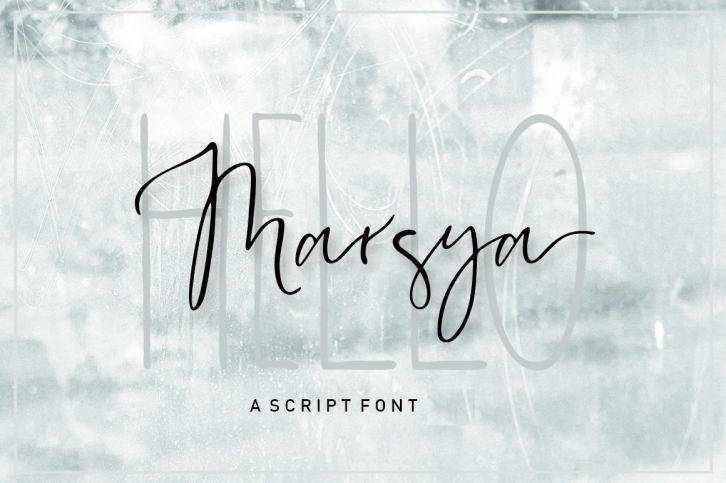
Marsya is a lovely, modern calligraphic script font. This font is neatly crafted and highly detailed. Whatever the topic, Marsya will be a wonderful asset to your font library, as it has the potential to enhance any creation.